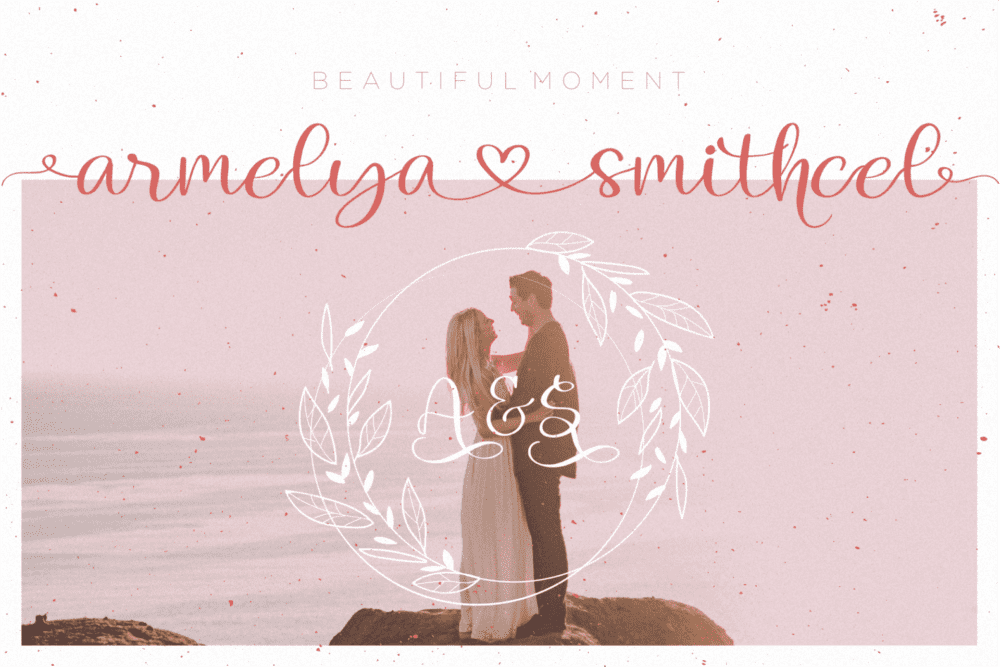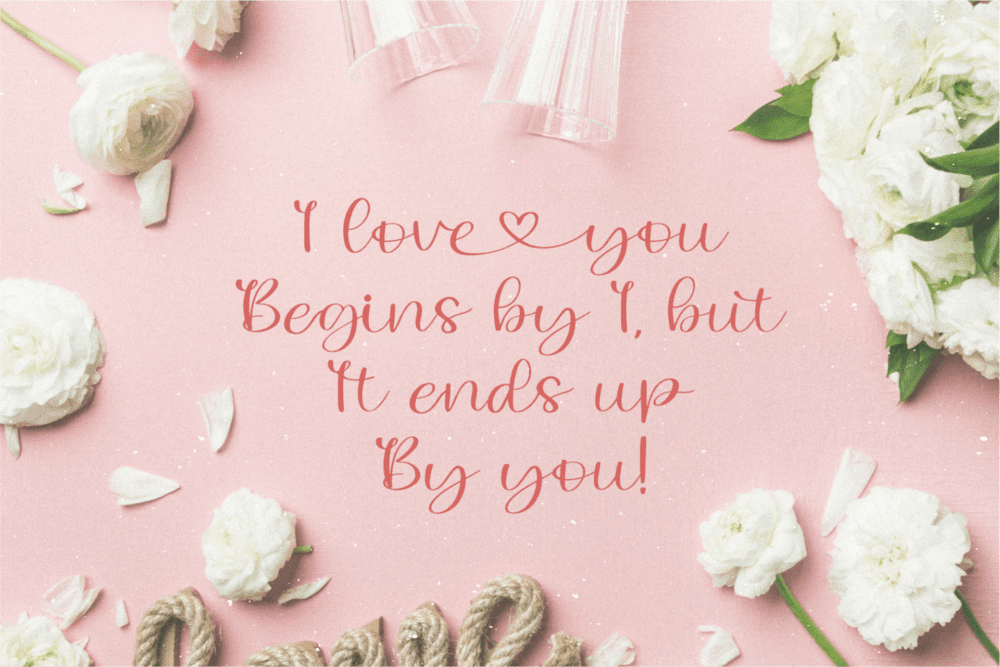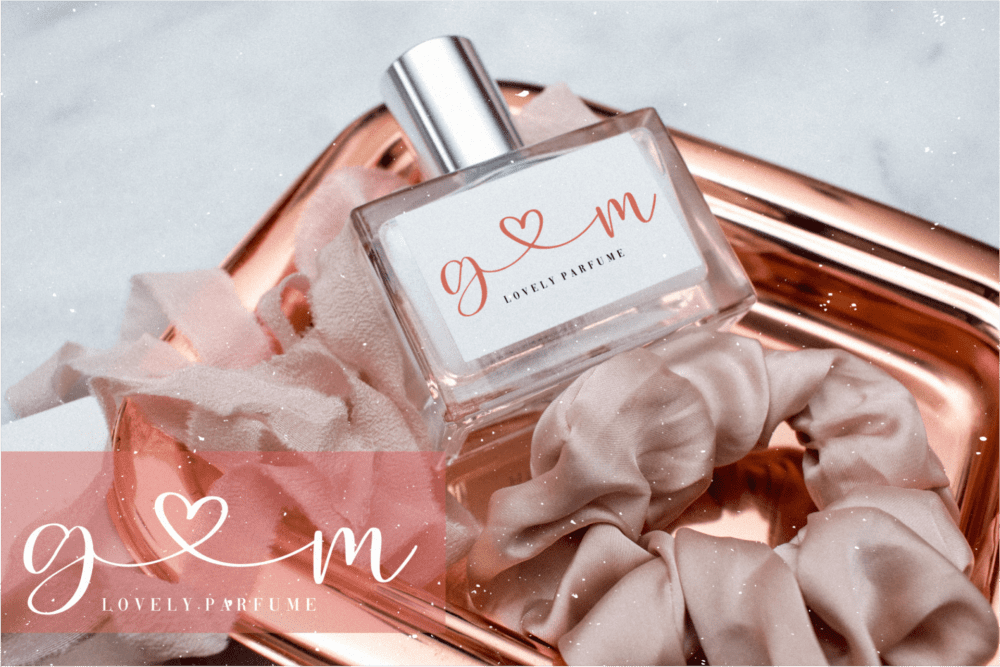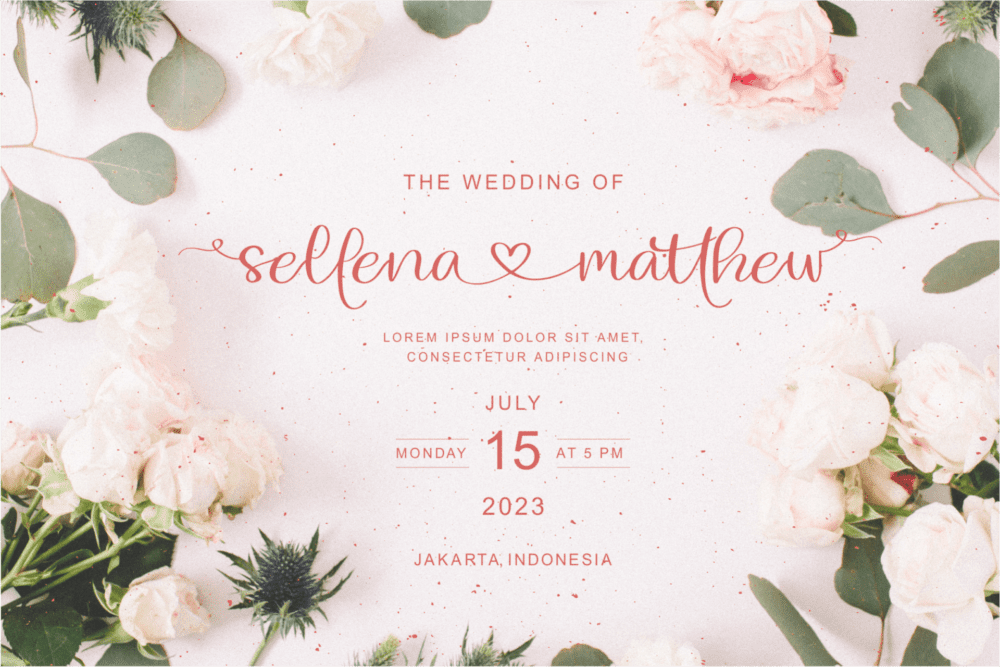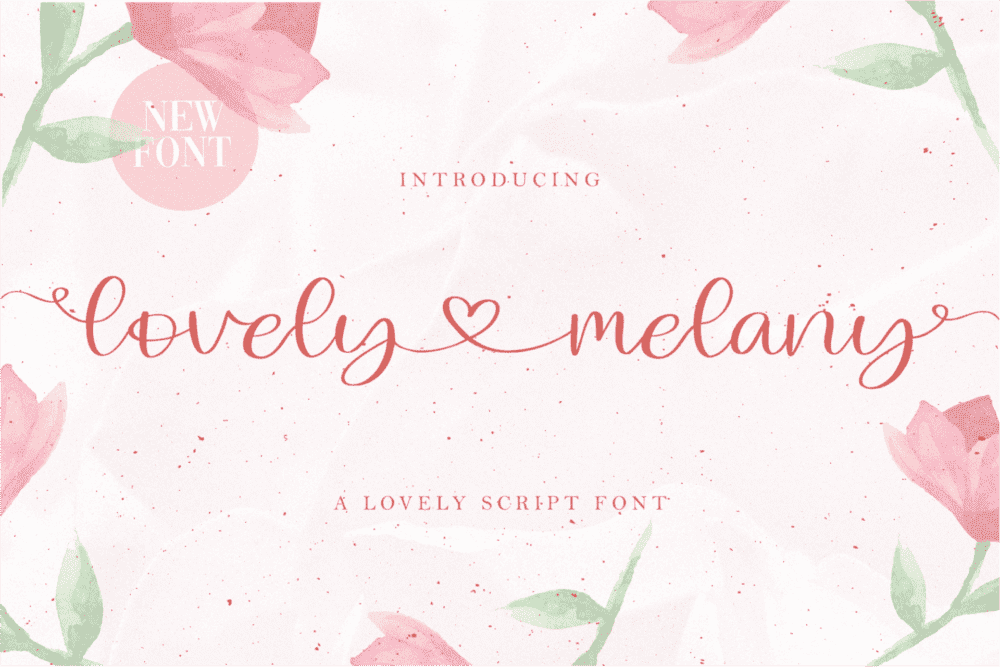
Lovely Melany Font
Lovely Melany font feels equally charming and elegant. It looks stunning on wedding invitations, thank you cards, quotes, greeting cards, logos, business cards and every other design which needs a handwritten touch.